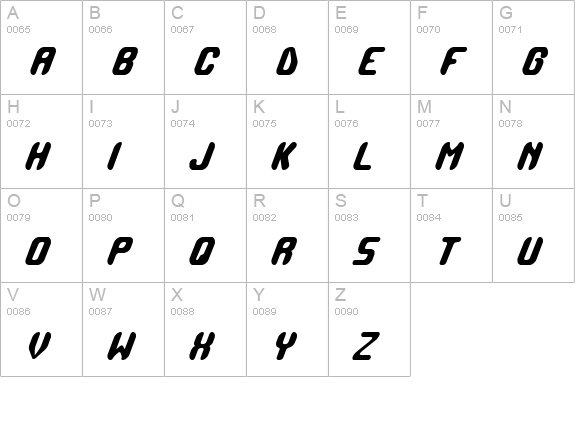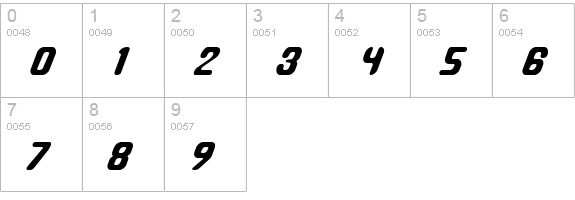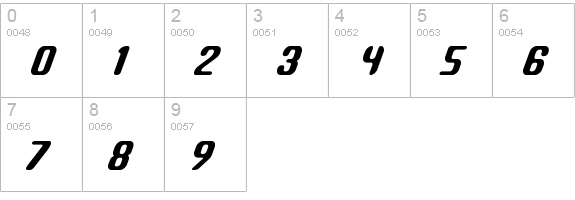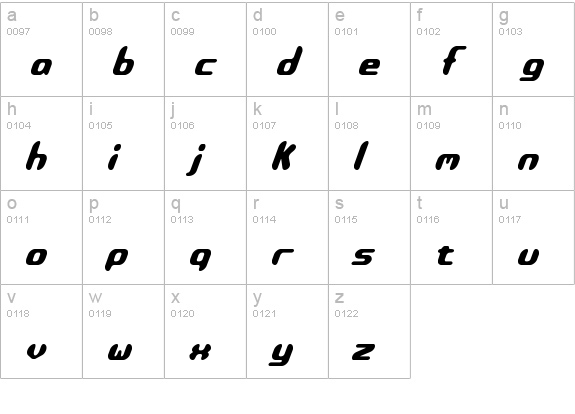
Detonate (BRK) Font Details
Detonate (BRK) font is a bold and dynamic typeface that exudes power and modernity. Its sharp edges and strong lines make it perfect for creating eye-catching designs with a touch of edginess. The explosive energy of this font will make your projects stand out and leave a lasting impression on viewers. The best part? Detonate (BRK) font is available for free download at FontsMarket.com. Whether you're working on a poster, logo, or website design, this font will add a bold statement to your creative projects. Don't miss out on the opportunity to enhance your designs with this impactful and striking typeface. Download Detonate (BRK) font now and let your creativity explode!